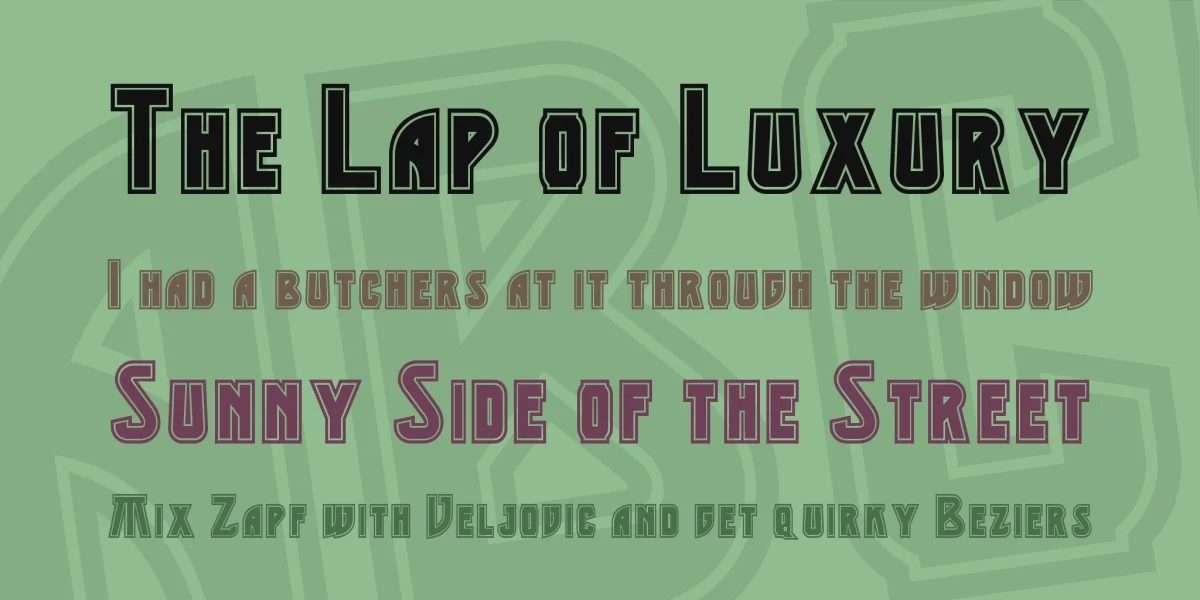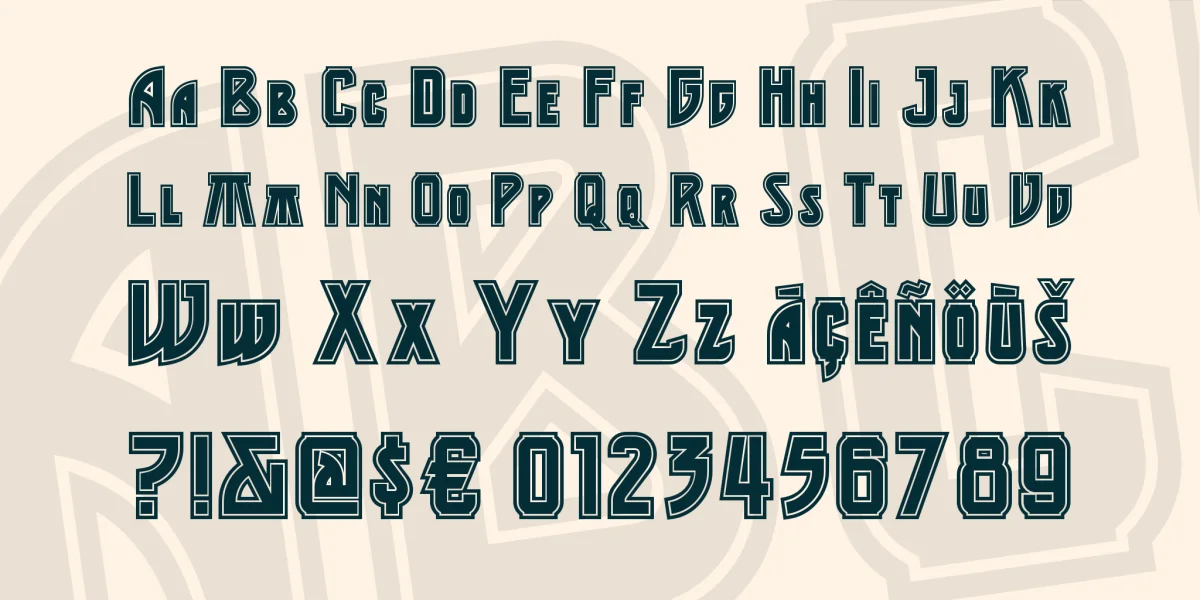
A Swiss poster from the 1914, signed simply Marx, pointed the way to this kinda Art Nouveau, kinda Middle Ages typeface. The inline treatment is an original contribution, and friends of Frodo will know whence the name came.